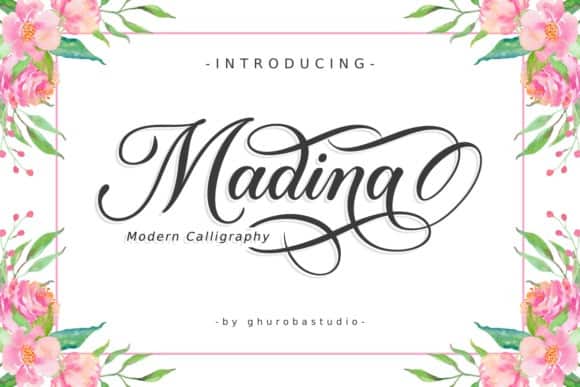
Madina Calligraphy Font
Madina Font is handwritten stylish copperplate calligraphy typeface, combines from copperplate to contemporary typeface with a dancing baseline, classic and elegant touch.